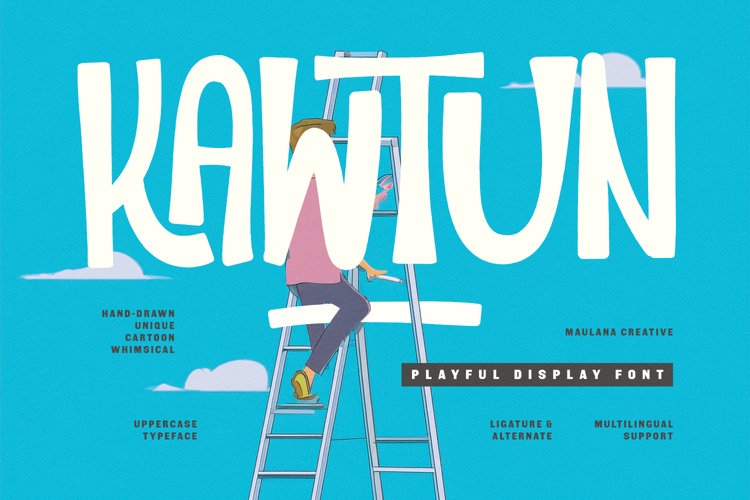
Kawtun Playful Display Font
Kawtun is a charming and hand-drawn display font designed to bring a sense of joy and whimsy to your creative projects. Characterized by its irregular, bouncy letterforms and bold presence, this uppercase typeface captures a "cartoon-ish" energy that is perfect for children's books, quirky branding, and eye-catching posters. With its unique ligatures and multilingual support, Kawtun offers a handcrafted feel that stands out in a world of rigid grids, making it an ideal choice for designers looking to add a touch of personality and warmth to their work.
- Ligatures and alternate for a natural handwriting flow